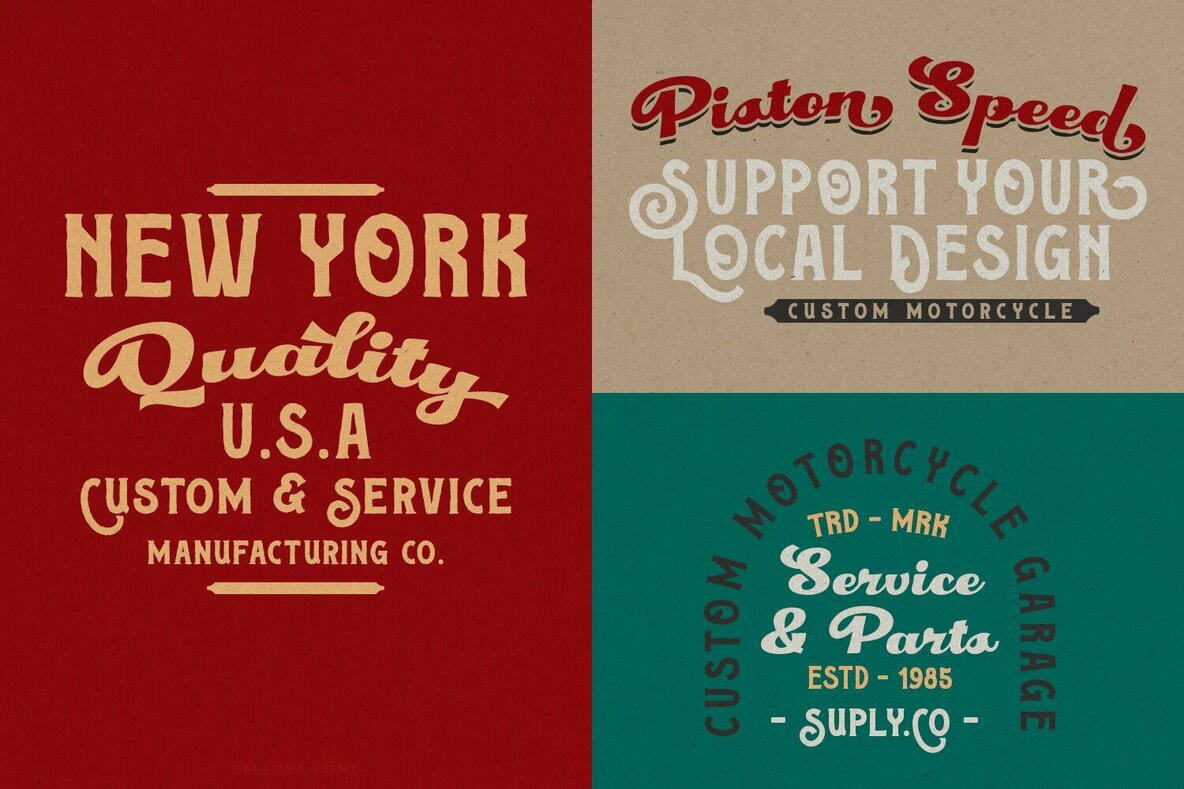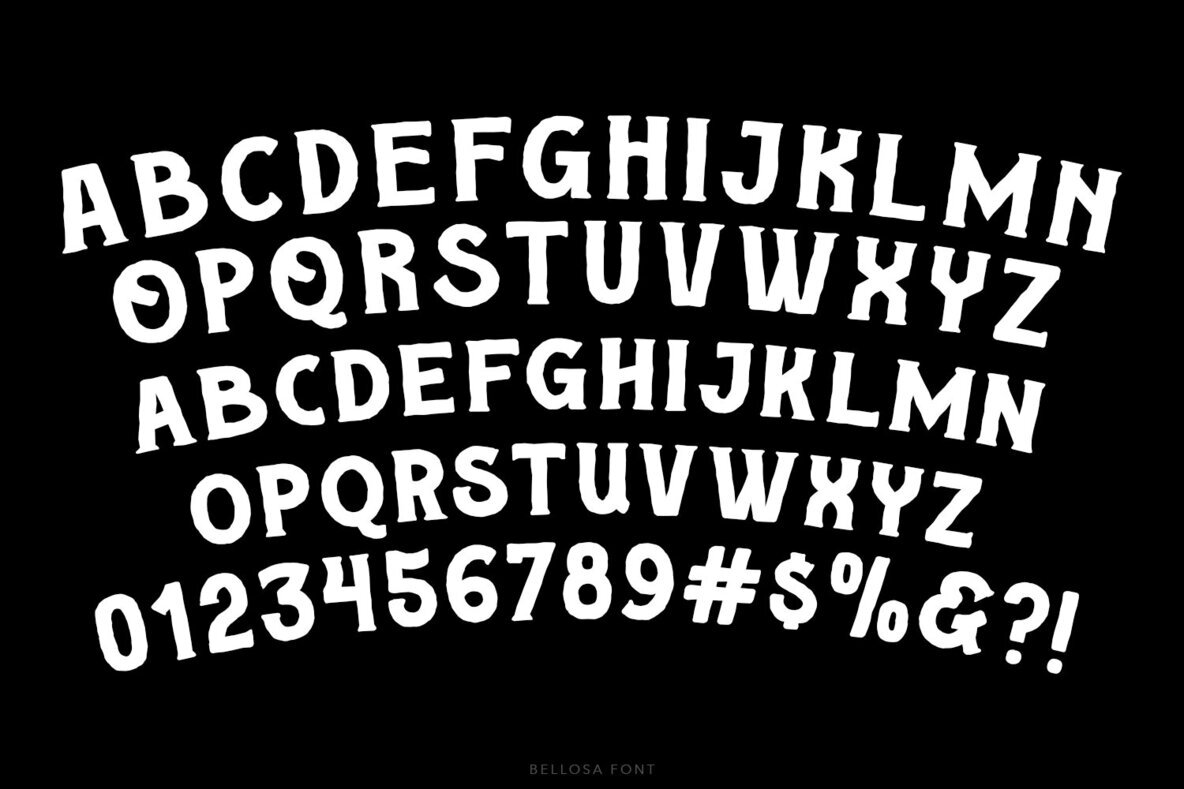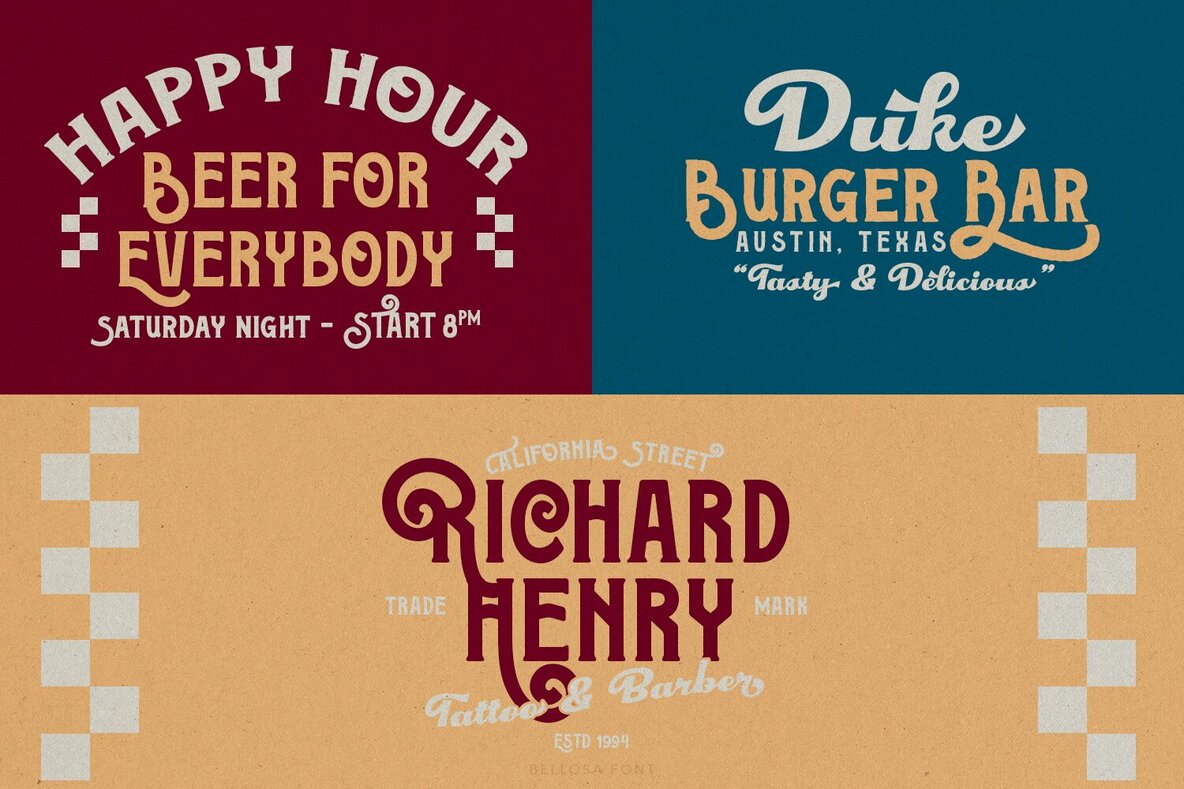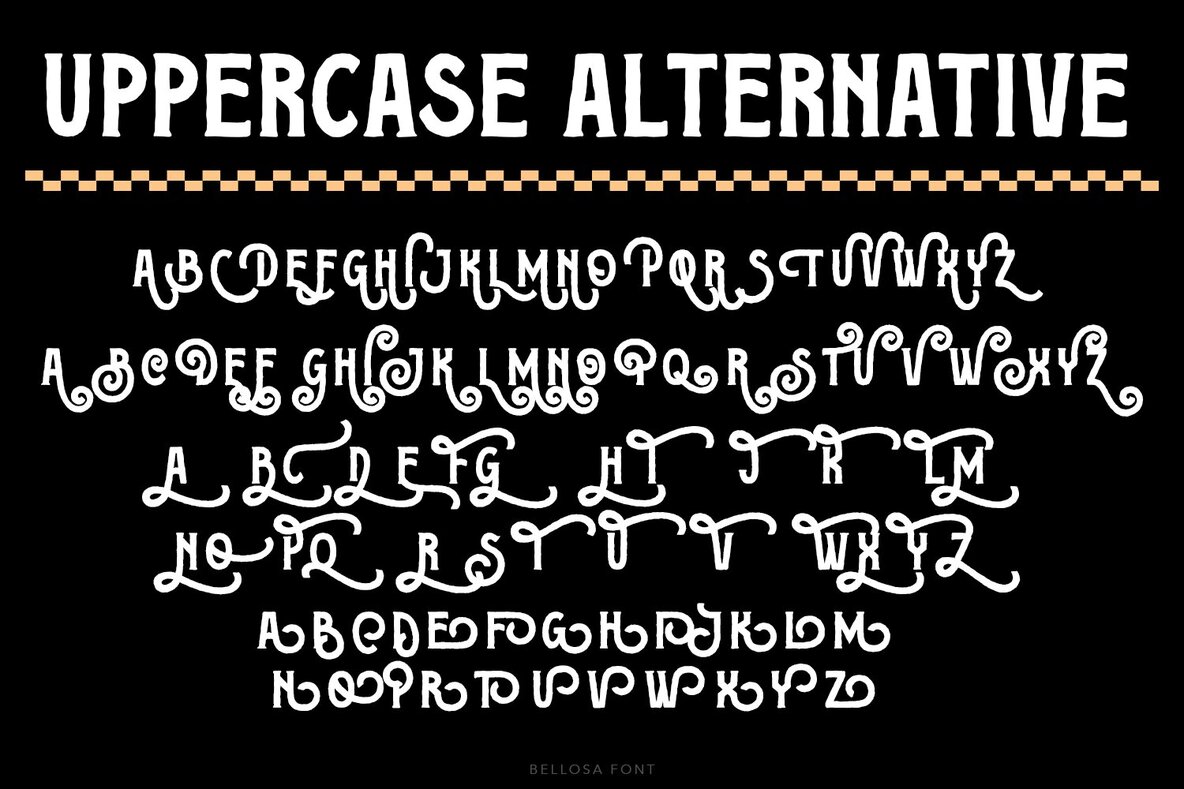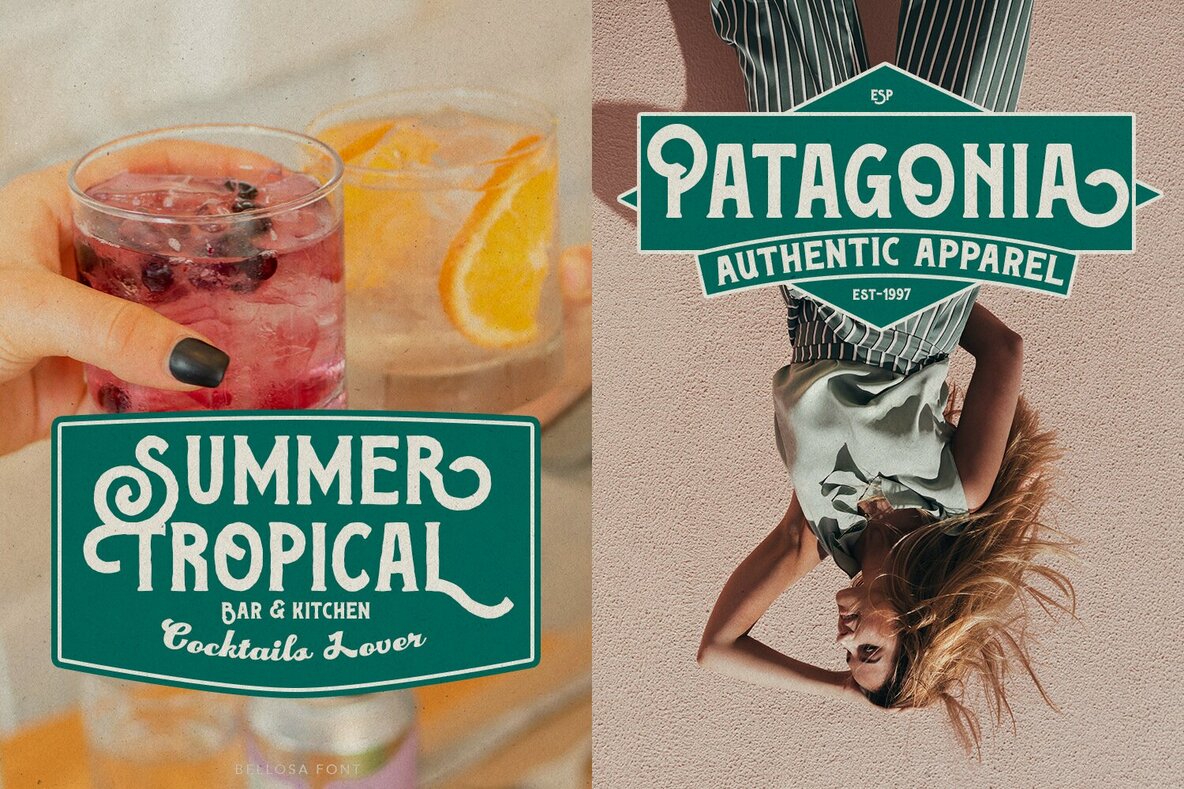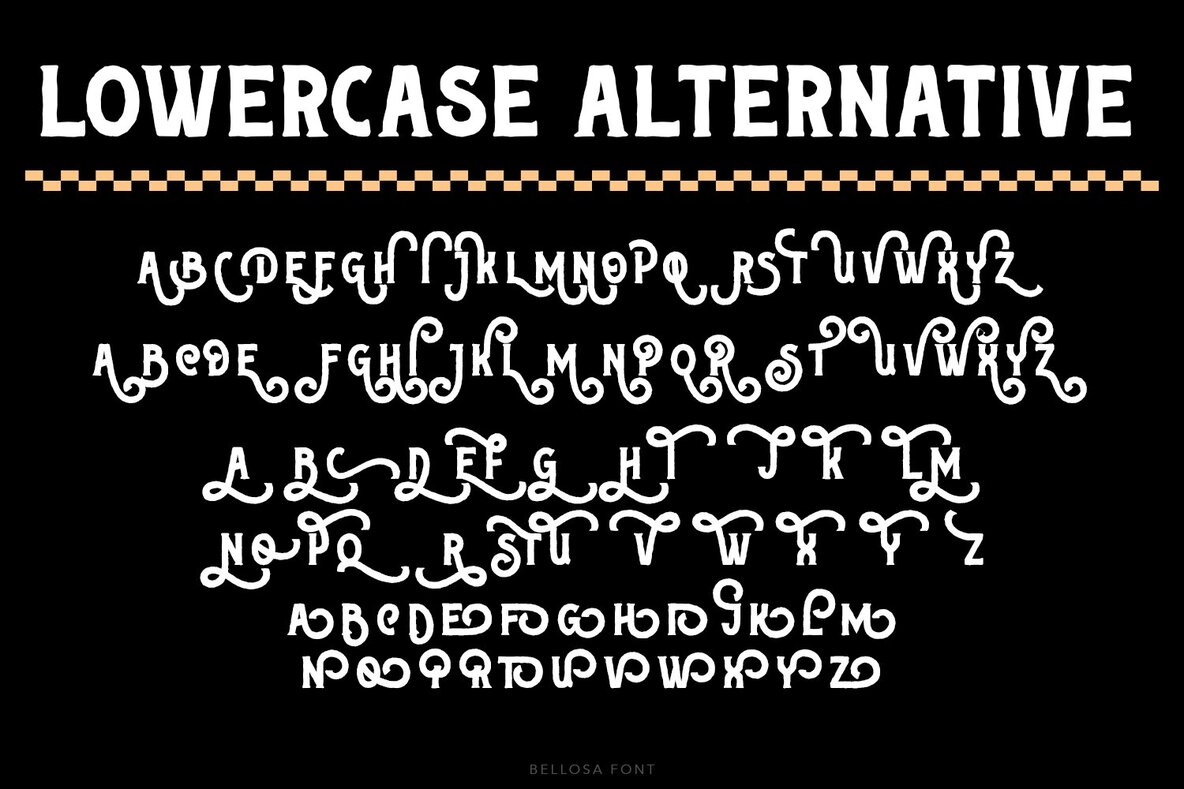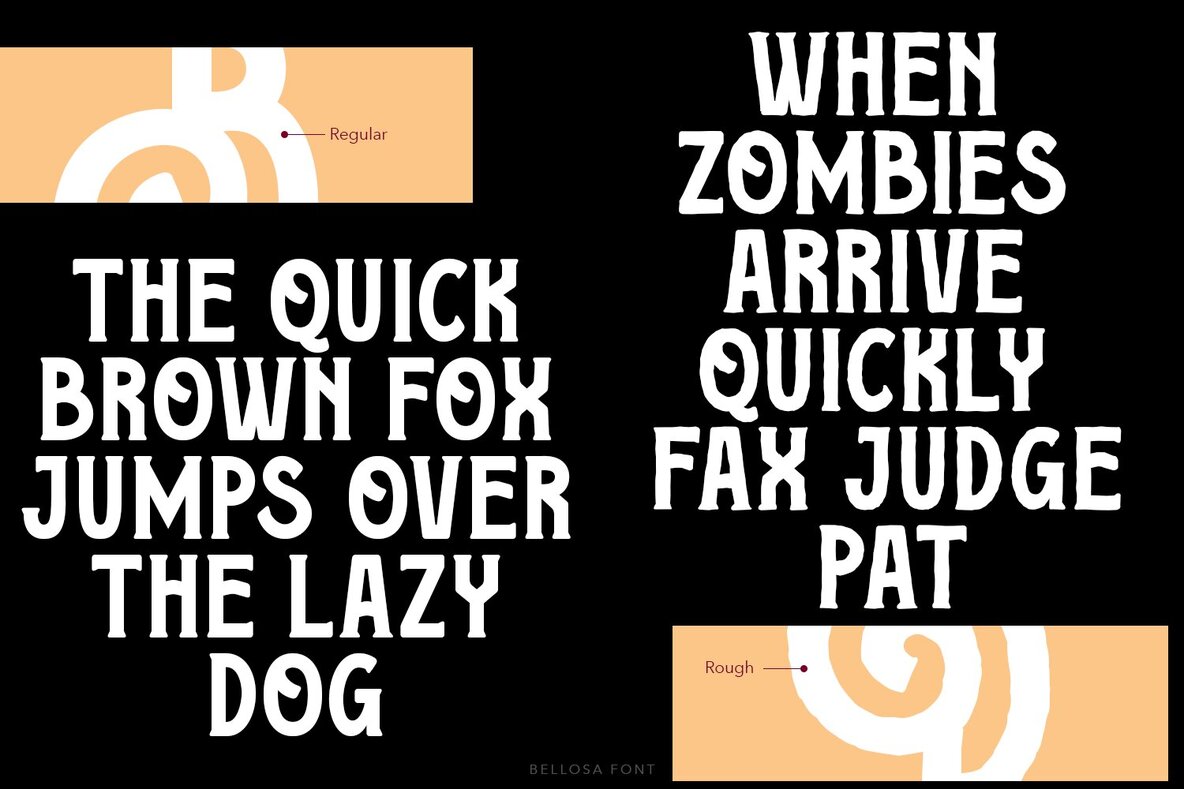
Bellosa Font
Bellosa
Bellosa Textured
Bellosa is a vintage display font ideal for crafting timeless designs with ease. Its classic style makes it perfect for creating quotes, logos, logotypes, or badges, offering a traditional flair to any project. The font's design facilitates seamless integration, enhancing its versatility for various creative needs.
This font comes with unique features, including both regular and textured versions, which provide a distinctive appearance to your designs. Additionally, Bellosa offers a variety of ligatures and alternative styles, allowing for endless customization and creative expression. Whether you are developing a retro-inspired project or seeking to add a touch of classic sophistication, Bellosa serves as a versatile tool in your design arsenal.